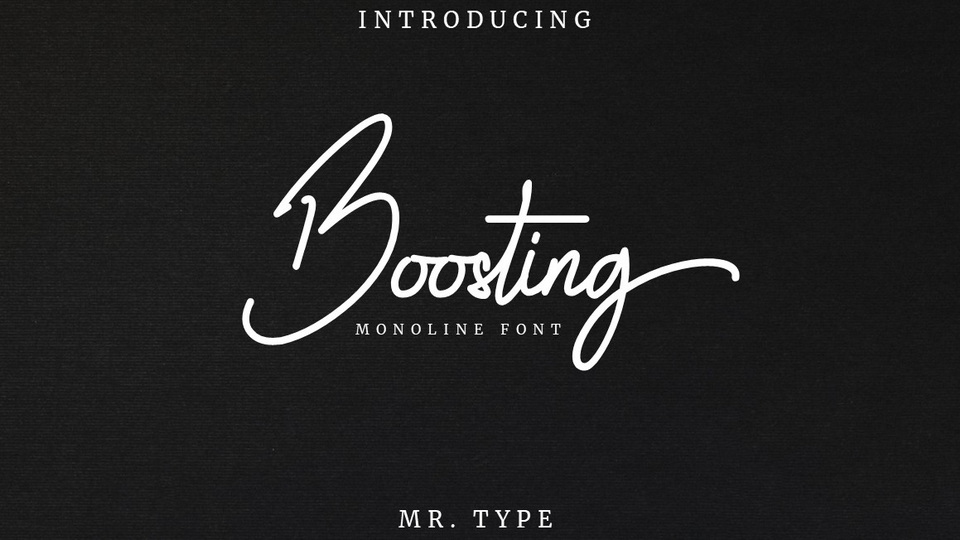
Download Boosting font, a simple and elegant signature monoline typeface. Boosting is suitable for many different designs for business card, quotes, social media, signature, wedding invitations, advertisements, product designs, label, photography, watermark and more.
Designer: Mr Type